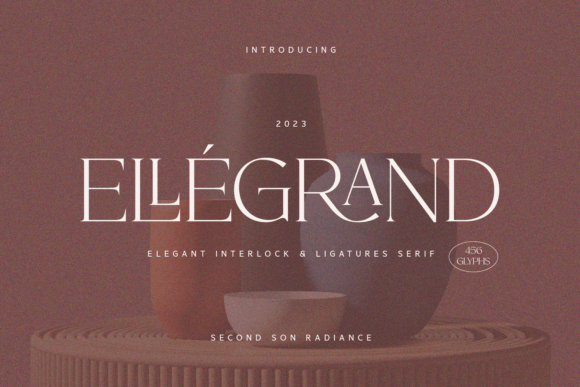
Discover the Elegance of Ellegrand Font
Have you ever been browsing through a fashion magazine, and suddenly, a beautiful headline or logo catches your eye? That’s what happened to me when I first laid eyes on the Ellegrand Font. Its sophisticated curves and charming serifs immediately drew me in, and I knew I had to learn more about this stunning font.
The Ellegrand Font is specifically designed for luxury, elegant, and feminine projects, making it the perfect choice for creating modern, chic designs. Whether you’re working on a high-end fashion brand or a luxury lifestyle magazine, this font is sure to elevate your project to the next level. As a designer, you’ll appreciate the versatility and sophistication of the Ellegrand Font, and its ability to add a touch of elegance to any project.
Ellegrand Font Key Features
- Font Family: Ellegrand, Ellegrand Italic, Ellegrand Bold, Ellegrand Bold Italic
- Unique Characteristics: Ellegrand features a modern, elegant, and refined design with subtle rounded edges, making it suitable for a wide range of applications, from body text to display headlines.
Ellegrand Font Review
Overall, I think the Ellegrand Font is a solid addition to any designer’s toolkit. ✨ One of its strongest points is its sleek, modern aesthetic, making it perfect for contemporary designs. It’s also highly legible, which is a must-have for any font.
Another benefit of the Ellegrand Font is its versatility. ✨ It comes in a range of weights and styles, from light to bold, and even includes italics and bold italics. This makes it easy to find the perfect version to suit your design needs.
- ⚠️ Limited language support: While the Ellegrand Font covers a range of languages, it’s not exhaustive, which may be a concern for designers working with international clients.
- ⚠️ Not ideal for small text: Due to its modern design, the Ellegrand Font can appear a bit busy when used in small text sizes, which may not be suitable for all designs.
Overall, I’d say the Ellegrand Font is a great choice for designers looking for a modern, versatile font. While it may have some limitations, its strengths far outweigh its weaknesses.
The Ellegrand Font is a elegant and sophisticated font, making it perfect for:
2. Luxury brand logos and packaging.
3. High-end fashion and beauty branding.
Remember to use the Ellegrand Font in conjunction with other design elements to create a cohesive and visually appealing design.
Alternatives to Ellegrand Font
Lato is a modern sans-serif font that works well for both body and heading text. It’s highly legible and suitable for various digital platforms, including websites, mobile apps, and print materials. Lato Font is a great alternative to Ellegrand Font as it has a similar clean and minimalist aesthetic, but with a more subtle feel.
Use Lato Font for: Websites, mobile apps, print materials, and digital products where a clean and modern aesthetic is desired.
Montserrat is a geometric sans-serif font that’s perfect for creating a modern and urban feel. It’s highly legible and suitable for headings, titles, and body text. Montserrat Font is a great alternative to Ellegrand Font as it has a similar geometric feel, but with a more edgy and modern twist.
Use Montserrat Font for: Websites, mobile apps, print materials, and digital products where a modern and urban aesthetic is desired.
Open Sans is a clean and modern sans-serif font that’s highly legible and suitable for body text. It’s a great alternative to Ellegrand Font as it has a similar clean and minimalist aesthetic, but with a more neutral feel.
Use Open Sans Font for: Websites, mobile apps, print materials, and digital products where a clean and neutral aesthetic is desired.